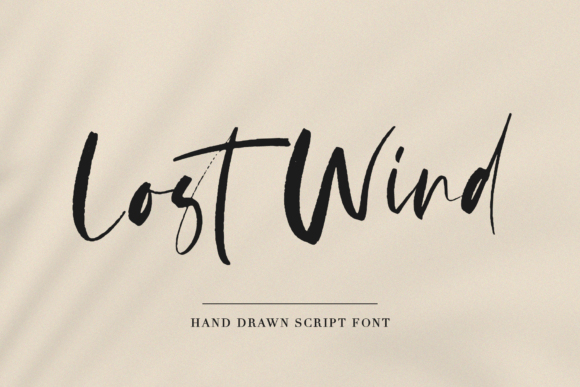
Lost Wind Font
Introducing Lost Wind Font – a captivating script font that embodies the essence of handwritten elegance. Crafted meticulously by the renowned Pasha Larin, this font breathes life into your creative endeavors, adding a touch of grace and individuality to every project.
Lost Wind is more than just a collection of characters – it's a journey into the realm of expression. Its fluid strokes and delicate curves evoke a sense of intimacy, as if each letter has been penned with love and care. Whether you're a designer seeking to craft a unique logo, an artist yearning to infuse your works with emotion, or a business owner hoping to leave an unforgettable mark on your customers, Lost Wind is your perfect companion.
This versatile font lends itself seamlessly to a multitude of applications. Picture the allure of a handwritten menu that tantalizes taste buds, the charm of an invitation that sets the stage for an enchanting evening, or the allure of a book cover that draws readers into a captivating tale. Lost Wind's adaptability knows no bounds, making it the ideal choice for a myriad of creative pursuits.
Beyond its versatility, Lost Wind possesses an intrinsic charm that captivates the senses. Its graceful flow mimics the rhythm of a gentle breeze, whispering secrets of elegance and sophistication. Each letter, meticulously crafted to perfection, carries the weight of emotion and the power to evoke memories.
With Lost Wind, you hold the key to unlocking the door of creativity. Let your imagination soar as you create designs that speak from the heart, leaving an indelible mark on the world. Embrace the beauty of handwritten elegance, and allow Lost Wind to guide you on a journey of self-expression and artistic triumph.